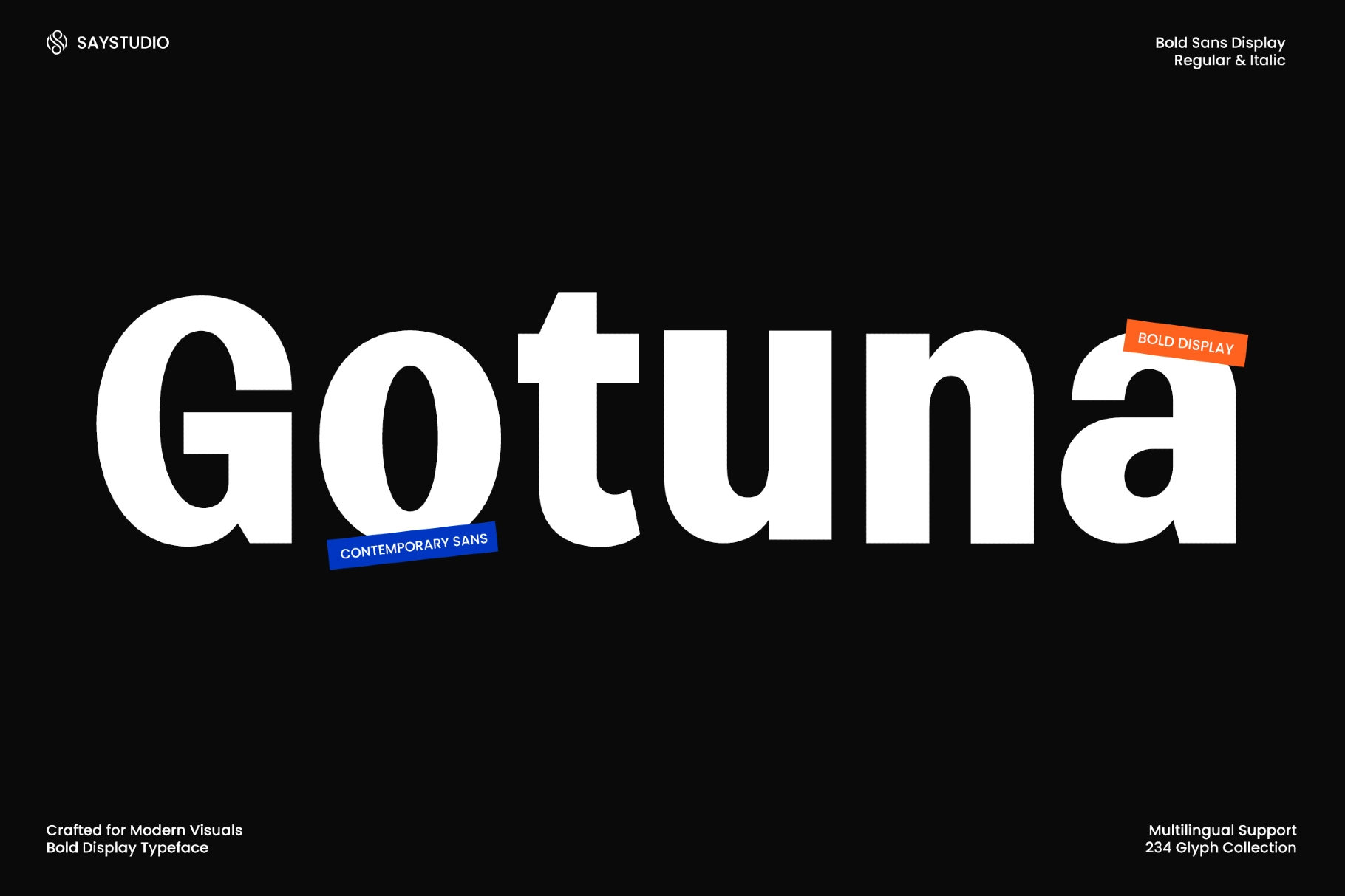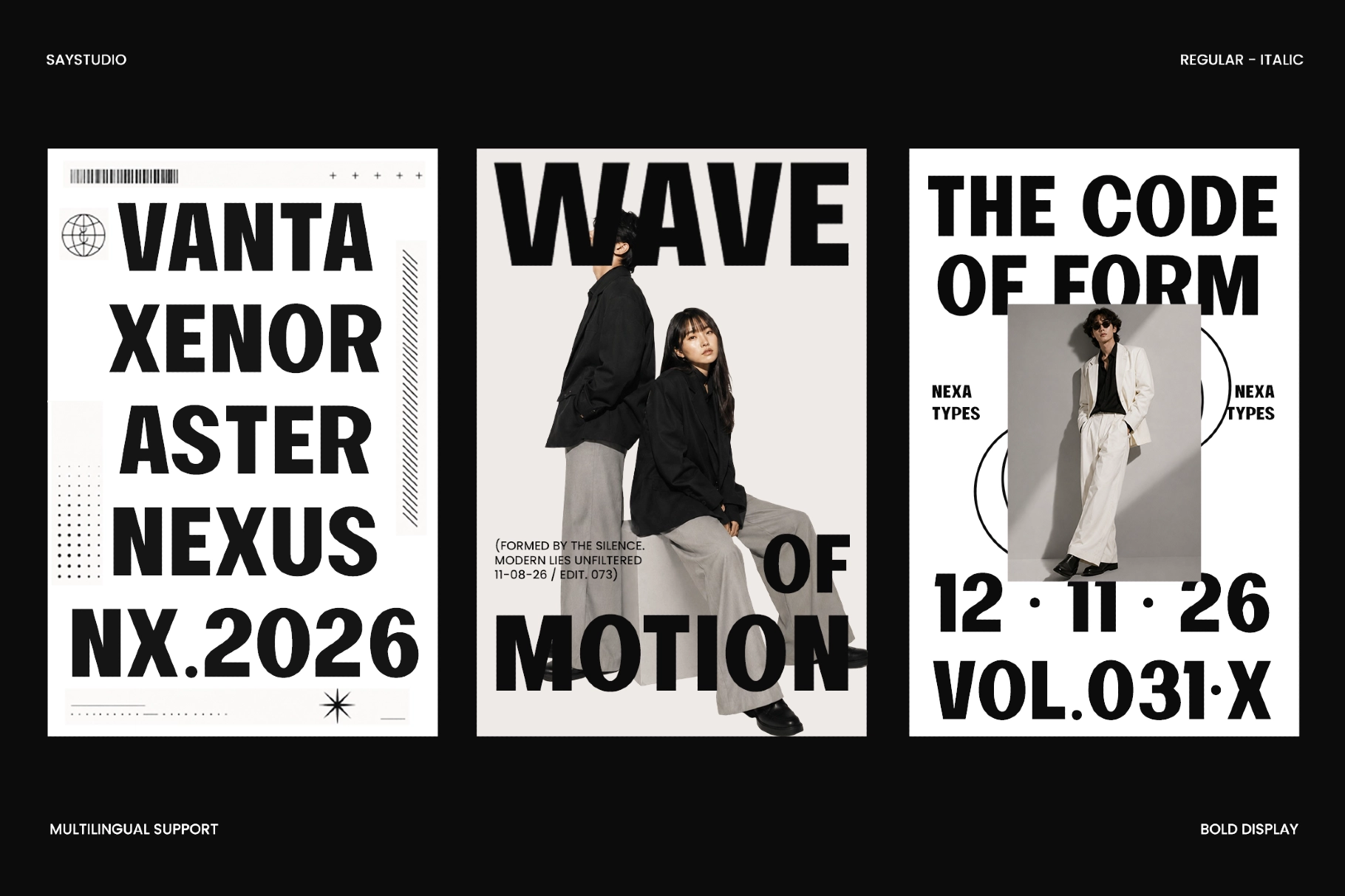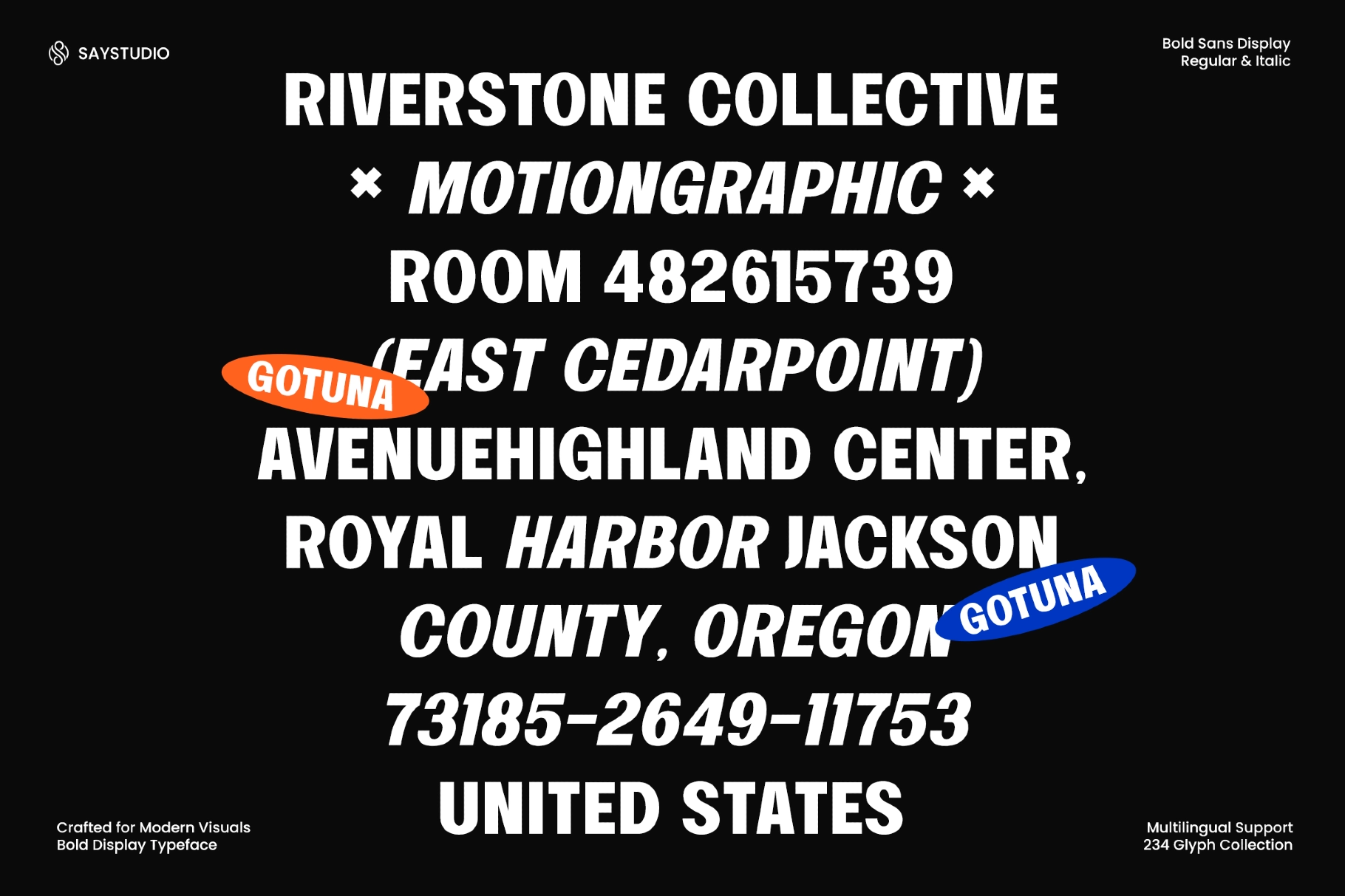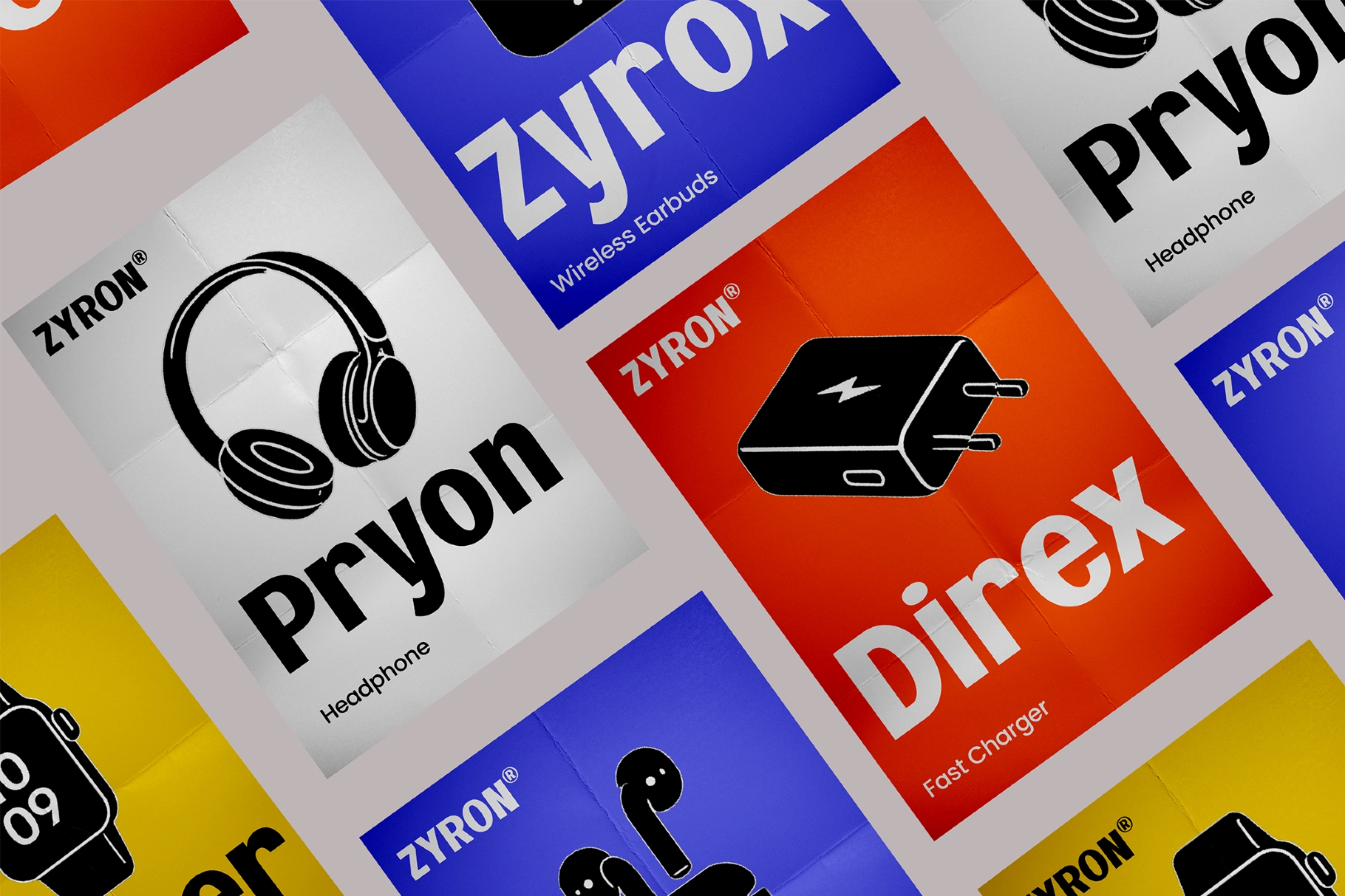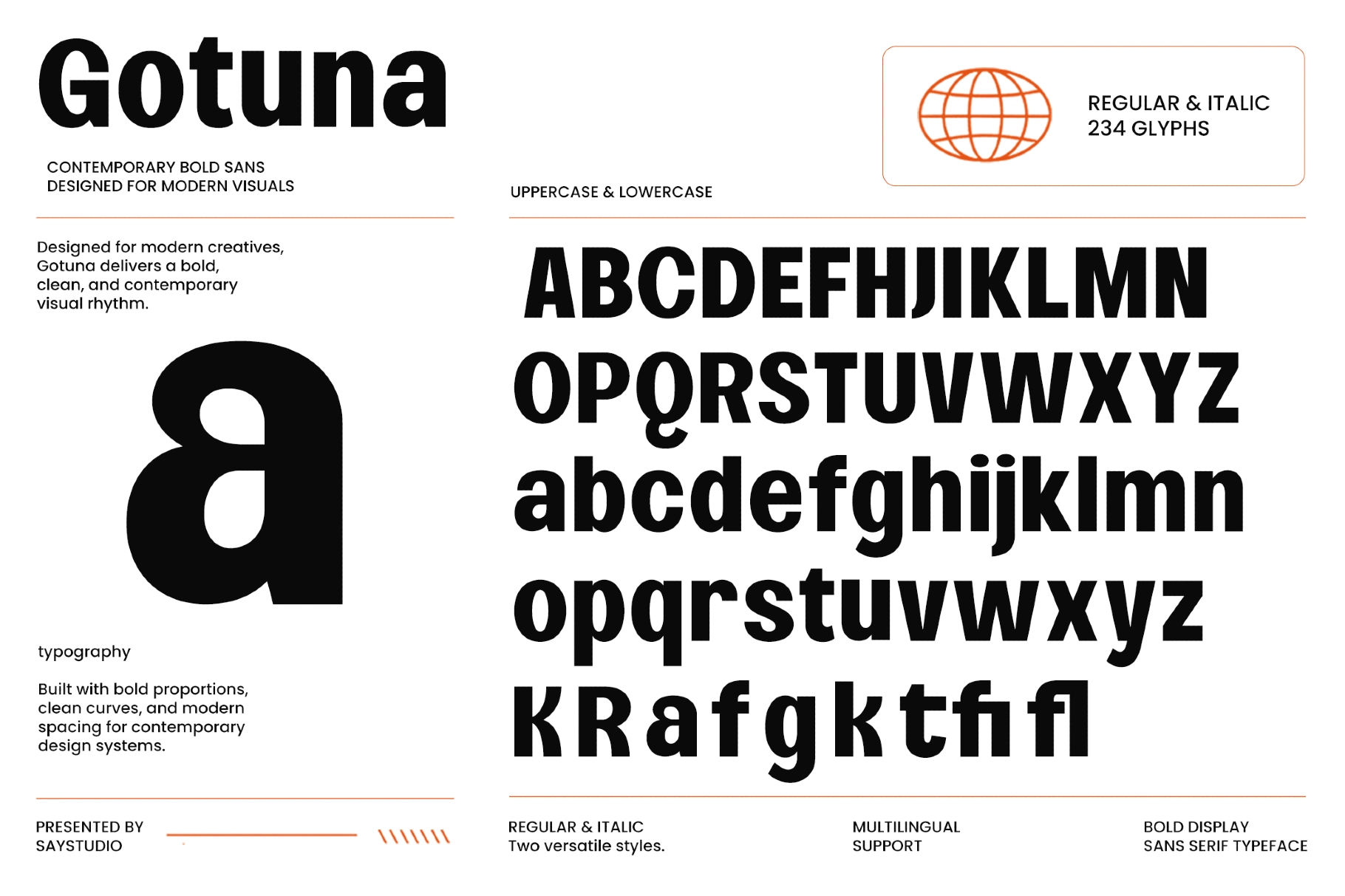
Gotuna - Contemporary Display Sans Serif Font
This bold sans serif is all mass, clarity, and tight graphic control: thick verticals, compact curves, sharp spacing, and a no-drama rhythm that hits hard at poster scale. The letterforms are clean and assertive, made for layouts where the type has to do the talking before the copy gets a vote.
Gotuna is a strong fit for tech branding, fashion campaigns, editorial headlines, event posters, product packaging, app interfaces, album covers, YouTube thumbnails, magazine covers, signage, social media graphics, and advertising layouts. The Regular and Italic styles add useful contrast for hierarchy, quotes, motion-led graphics, and punchy secondary text.
• 2 styles: Regular, Italic
• 234 glyphs
• Stylistic Alternates
• Stylistic Ligature